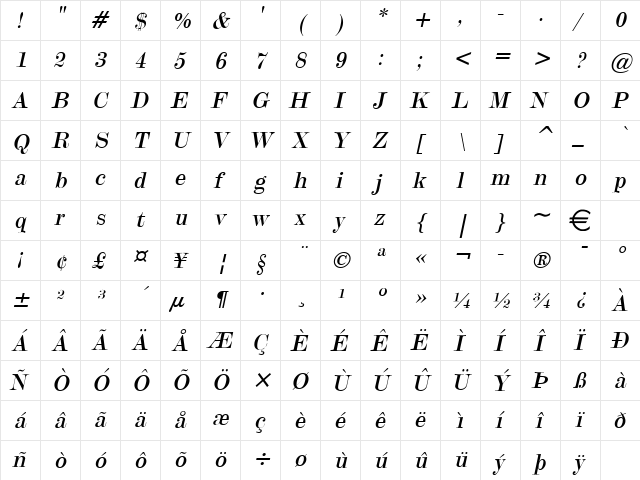
Update20 Italic
Design Context for Update20 Typeface
Update20 offers clean, dependable letterforms without strong stylistic allegiance, making it a practical choice for designers who need flexibility. The dynamic lean of this cut emphasises speed and emphasis in any layout.
Pro Tip: Try Update20 for annotation and caption copy alongside an upright companion — the contrast in angle creates a dynamic but ordered typographic system.